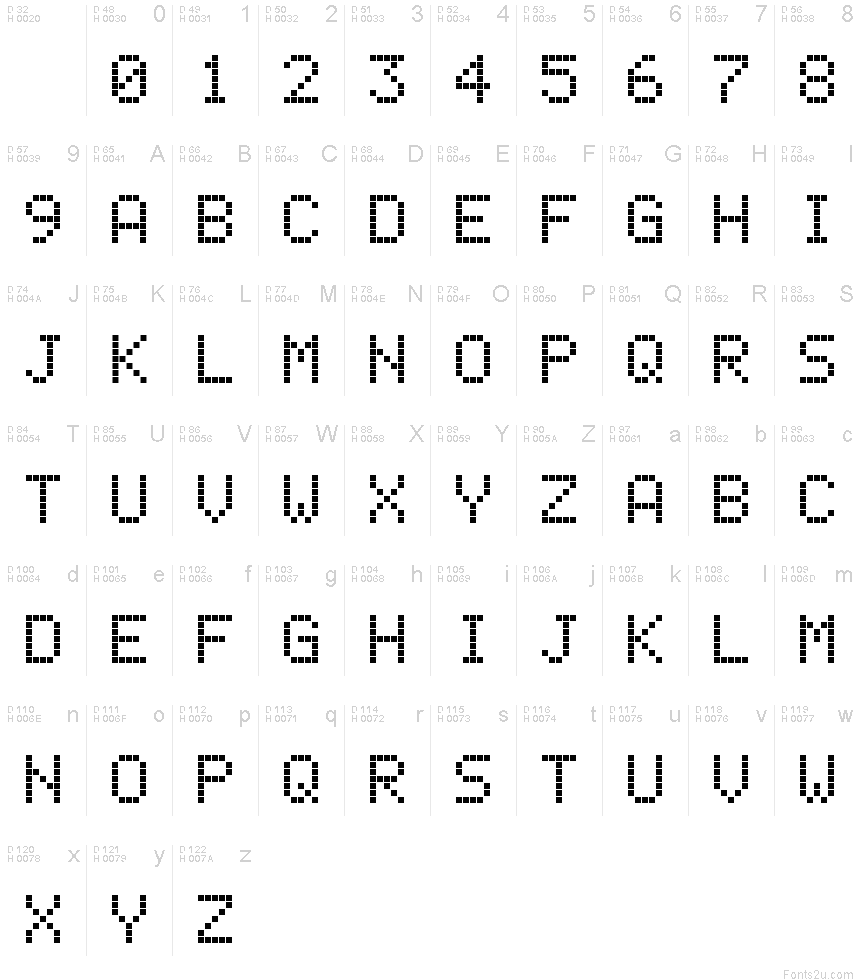
LCD Phone by Raul Perez Canseco for dibujosenlinea.com.mx is a free pixel font with the clipped, utilitarian look of an early mobile display. Its tall letters keep a fairly even width and an open, airy texture. The repeated right angles and simplified joins give the alphabet a distinctly electronic voice.
Digital graphics are its clearest setting, pairing the handset-era look with game interfaces, dashboard mockups, and technology event posters. In editorial design, the same narrow forms can suggest archived messages or obsolete devices on magazine covers and feature openers.
This is the font from my first cellphone, Erickson.